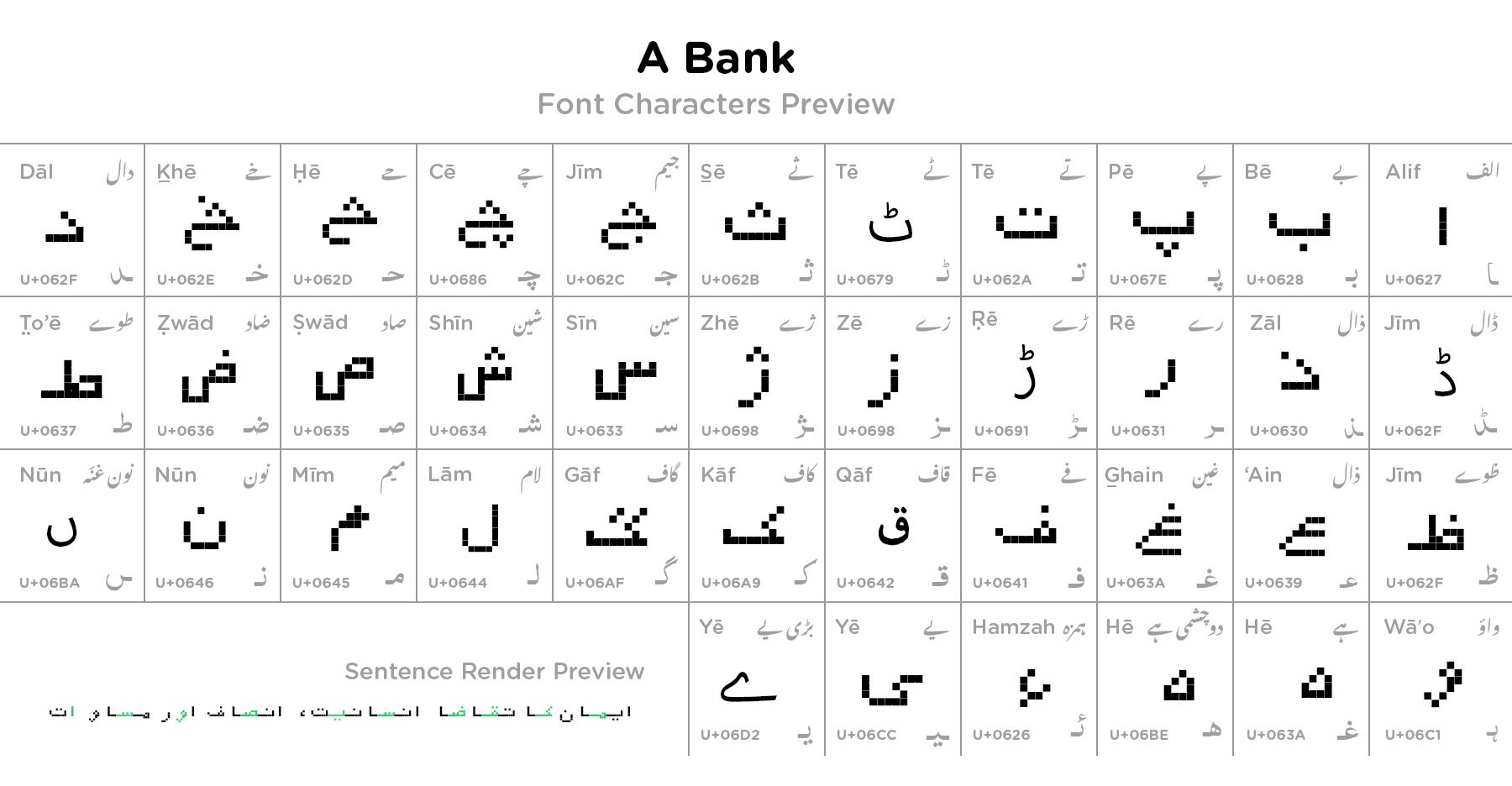
A Bank is a wide and modern digital Arabic font with a unique appearance and letter formation. Its letters are half pixelated, half straight, and have an unusual elongated composition. Designed by Naser Ebrahimi, the font does not draw any inspiration from Arabic scripting techniques, unlike other Arabic typefaces. It is more of a creative font than an actual literary or writing font. A Bank also offers letters, adding more to its futuristic appeal and increasing readability. It is best suited for artistic works such as tech designs, branding, tech-related posters, gaming displays, etc. Moreover, the font supports different languages other than Arabic, such as Latin, Urdu, and Persian, catering to multi-lingual design projects. However, it is available in only one weight, limiting its use and adaptability. Additionally, it is compatible with Unicode blocks like Basic Latin, Latin-1 Supplement, Latin Extended-A, Arabic, and more, for a more diverse typographic experience across various platforms.
A Bank
| Font Family | A Bank |
| Font Developer | Naser Ebrahimi |